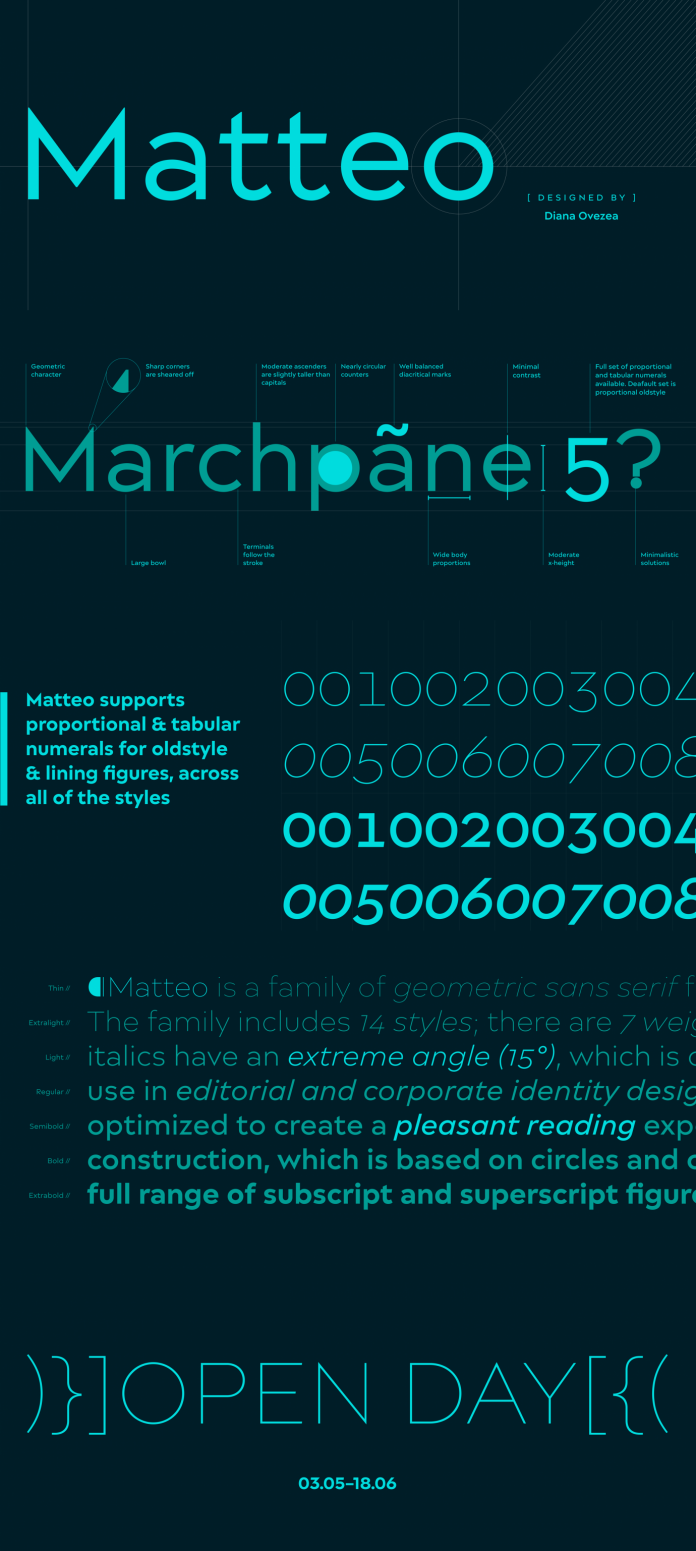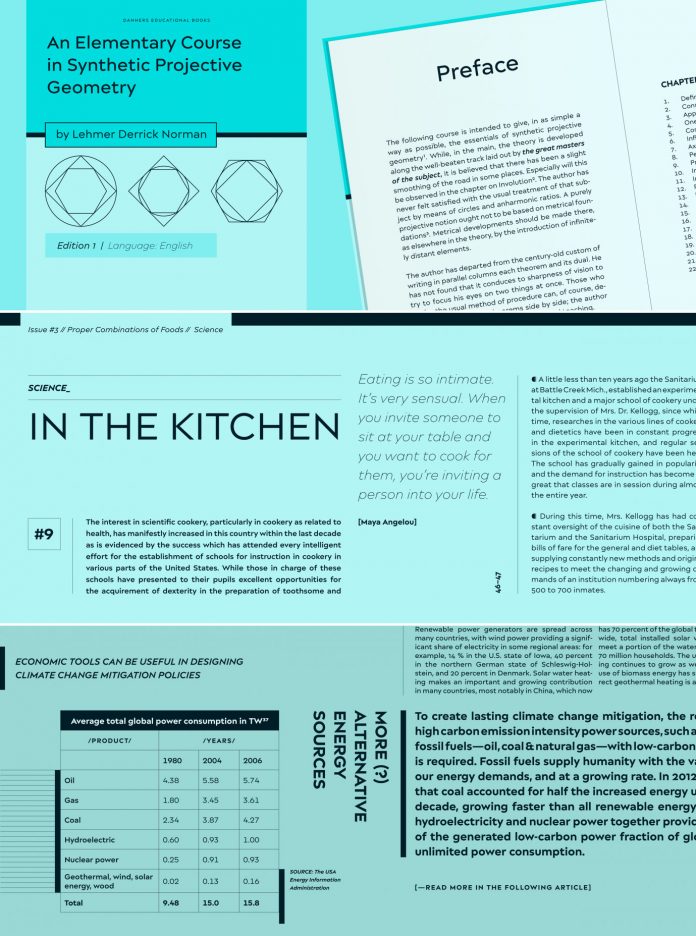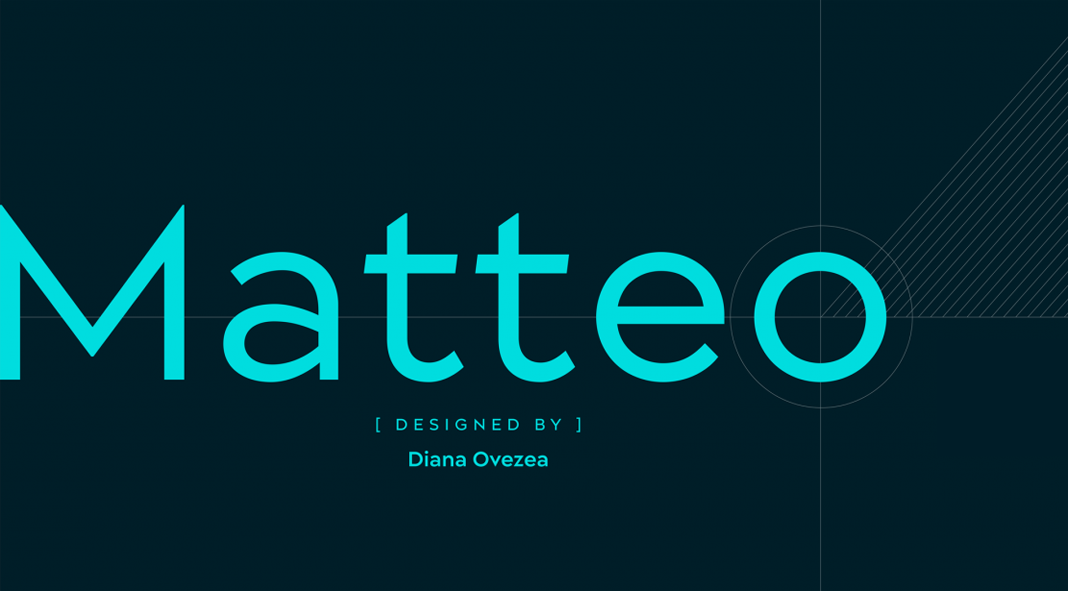
Matteo, a geometric sans serif font family from Indian Type Foundry.
Designed by Diana Ovezea, Matteo is a contemporary sans serif font family with a geometric look and feel. The family consists of 14 styles including 7 weights (ranging from thin to bold) plus matching Italics with an extreme angle of 15º. This typeface is an excellent choice for editorial work as well as corporate identities, advertising, and annual reports, just to name a few. Both letterforms and kerning have been optimized to provide a pleasant reading experience, even in small, longer text sections. The geometric construction gives Matteo its characteristic, modern look. Each font comes with four sets of numerals as well as a wide range of subscript and superscript figures. To learn more, just follow the link below.